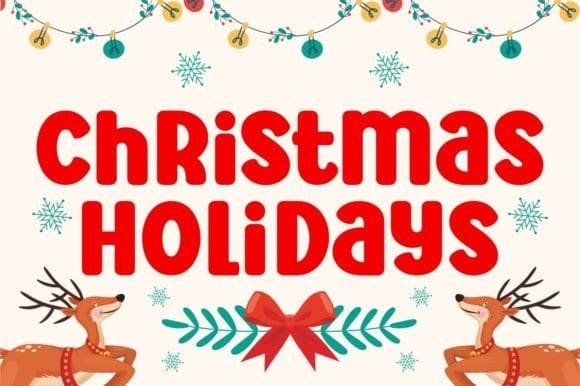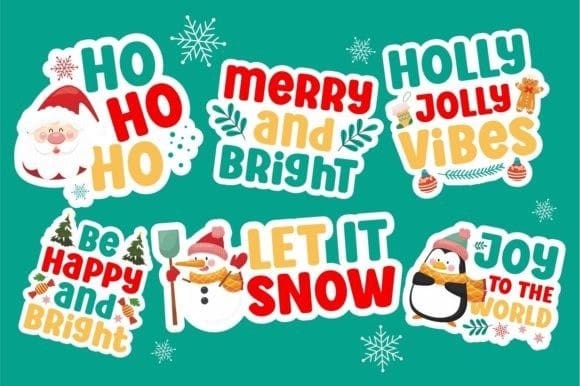
Holly Jolly Christmas Font
Holly Jolly Christmas Font is a festive and bold display typeface that radiates holiday cheer. With playful, fun letters, it’s perfect for adding a touch of merriment to your Christmas designs. Bring the spirit of the season to life in your holiday cards, banners, and festive creations with this whimsical font.